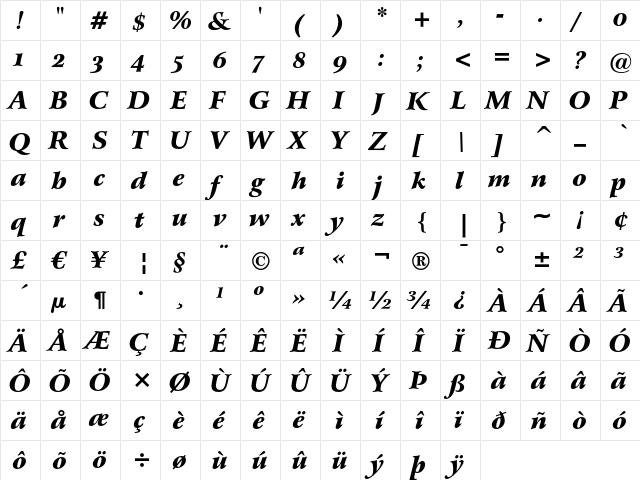
Bitstream Arrus Black Italic OSF Font Preview
Bitstream Arrus Black Italic OSF
Bitstream Arrus Black Italic OSF Font Details
| Style | Black Italic OSF |
Design Context for Bitstream Arrus Typeface
Bitstream Arrus takes a measured approach to typography — its balanced proportions and neutral character make it a reliable workhorse for both digital and print work. The slanted form adds forward momentum and visual energy.
Pro Tip: Use Bitstream Arrus for emphasis, pull quotes, and subheadings where its slanted energy can add rhythm to the layout.